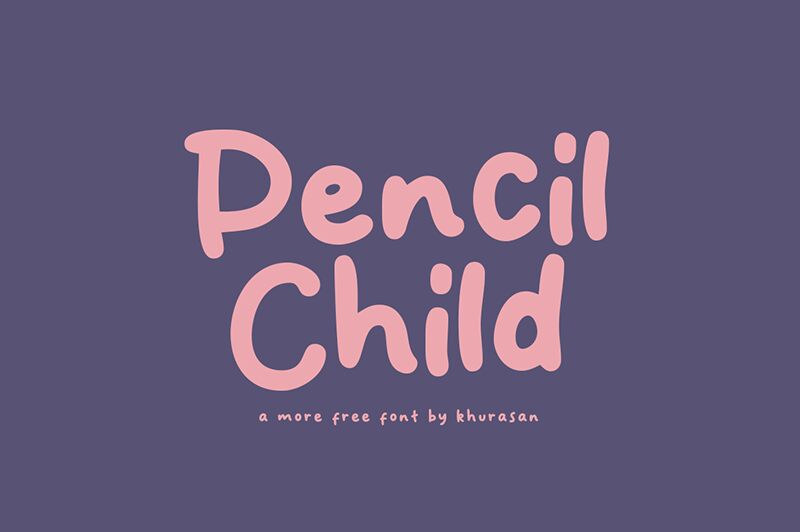
Pencil Child
Pencil Child, a whimsical handwritten font designed by Khurasan, is perfect for playful projects that require a touch of childlike charm. With its semi-light weight, this font adds a delicate and airy feel to any design. Its unique character makes it ideal for children's books, invitations, greeting cards, and even branding materials looking to add a touch of personality. Pencil Child's handwritten style gives an authentic feel and adds warmth to your designs. Whether you're designing for print or web, Pencil Child is sure to bring joy and creativity to your project.